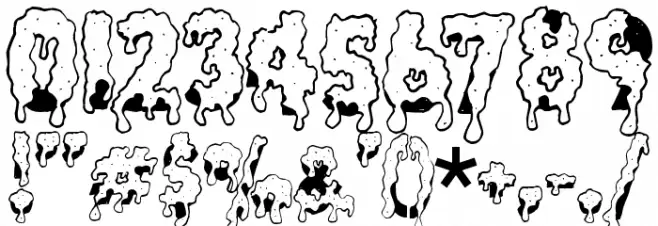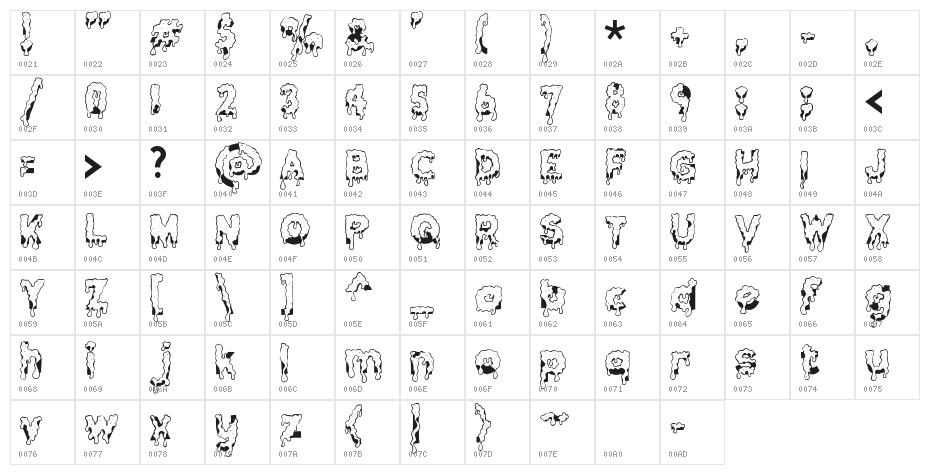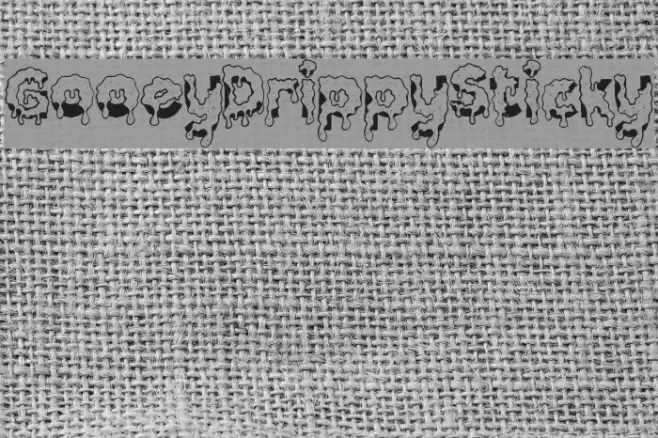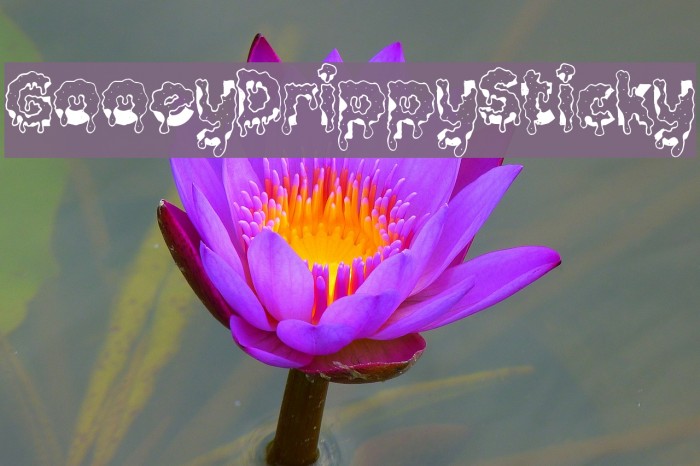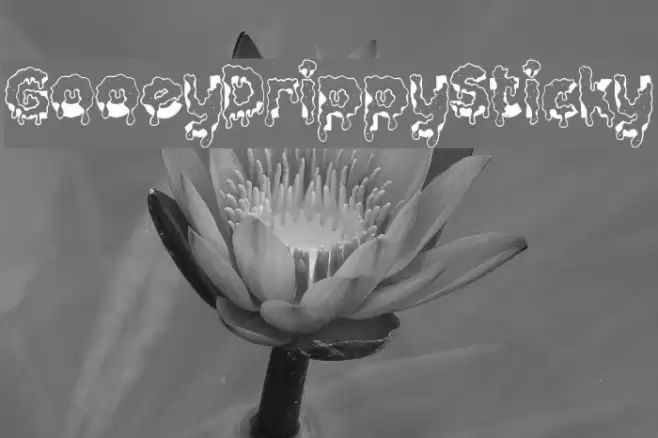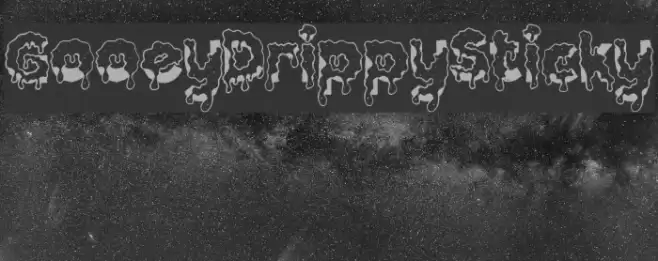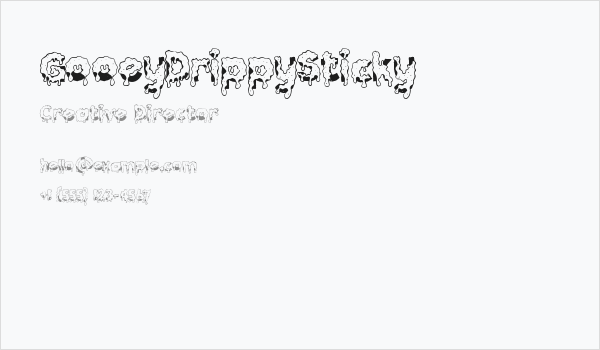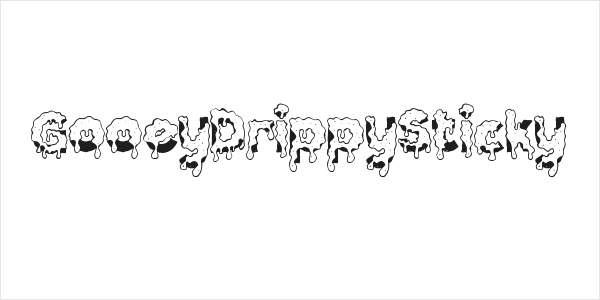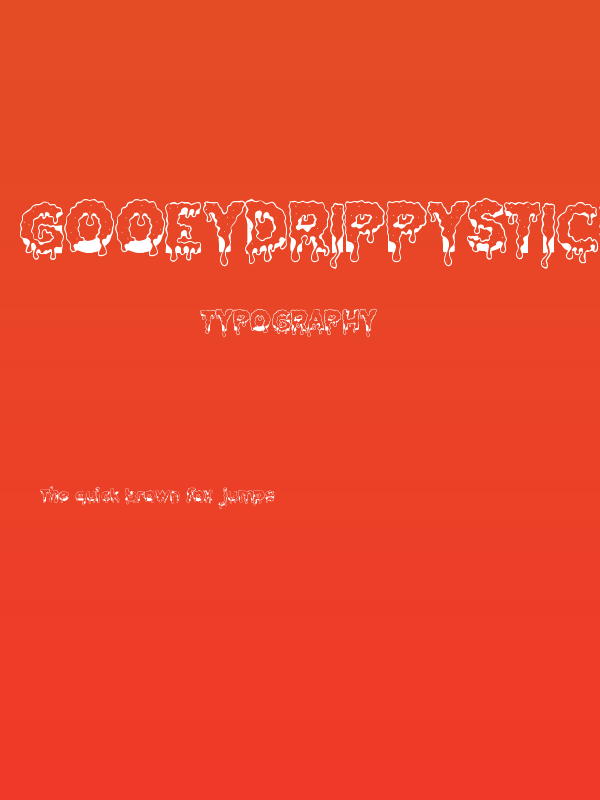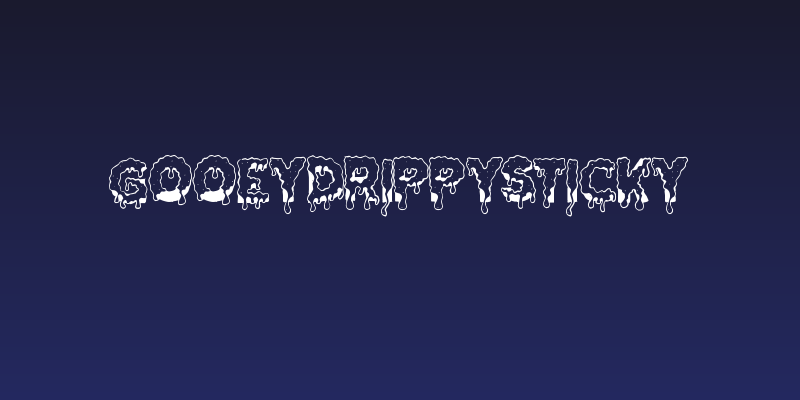
GooeyDrippySticky Font
GooeyDrippySticky Description
This font features a unique, playful design with characters that appear to be dripping or melting, giving it a gooey and sticky appearance. The letters are bold and have a cartoonish style, making them stand out with their irregular, fluid shapes. The font is highly decorative, with each character having a distinct, organic form that resembles liquid or slime. This creates a dynamic and eye-catching effect, perfect for creative and whimsical projects. The font maintains legibility despite its unconventional style, with each letter and number clearly distinguishable. The special characters are equally stylized, adding to the overall cohesive look of the font.
| Proposed Projects | Ideal for Halloween-themed designs, children's book covers, playful posters, or any project requiring a fun and quirky aesthetic. |